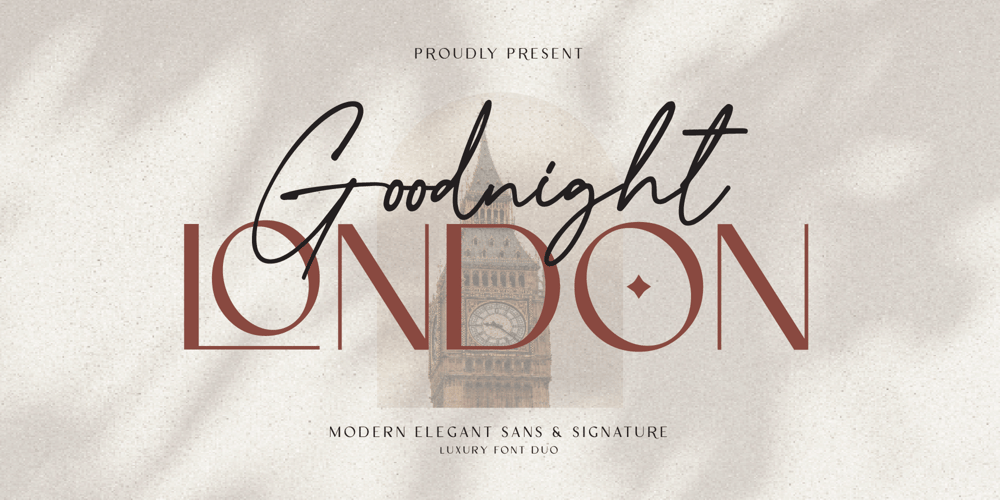
Goodnight London Font Family was designed by Rony Rizki Jaya and published by Ronny Studio. Goodnight London contains 5 styles and family package options. Goodnight London is a Duo Font with a blend of 2 fonts, namely the Sans & Script font. A luxurious font, with thick and thin sizes with a combination of handwritten script fonts, so that it adds an elegant, luxurious and classy impression. This typeface is perfect for logos, branding, travel promotions, social media posts, magazine layouts, product packaging, quotes, or simply as a stylish text overlay onto any background image.5 Style Font : Regular Sans Italic Sans Bold Italic Sans Regular Script Goodnight London Features : Uppercase Lowercase Numbers & Punctuation Alternates Ligatures Multilingual Support Simple installation All of features and special characters of this font are included in one file. So it is easy to accessed by using program or software that support the opentype like Adobe Illustrator, Adobe Photosop, and Adobe Indesign). This font also very easy to use because compatible for all software even for non-opentype supported. Please comment us if you have any questions Thank you and have a nice day.thank you